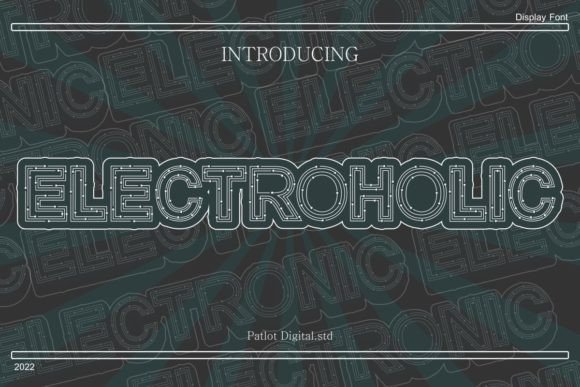
The Spark of Creativity: Unlocking the Potential of the Electroholic Font
Have you ever stared at a blank canvas, a blank page, or a blank screen, waiting for that spark of creativity to ignite? It’s that moment when the world around you fades away, and all that’s left is the hum of your imagination. For designers, this moment is a thrill unlike any other, and it’s exactly what the Electroholic Font is designed to inspire.
This unique display font is a masterclass in capturing the essence of electronic lines, distilling them into a bold, eye-catching design that’s sure to electrify your creative projects. Whether you’re crafting a futuristic logo, a neon-lit advertisement, or a cutting-edge graphic novel, the Electroholic Font is the perfect companion to help you unlock your full potential.
Electroholic Font Key Features
- Font Family: Electroholic Font is a unique, modern sans-serif font family designed for digital and print applications.
- Character Set: The font includes a comprehensive character set, including Latin, Cyrillic, and Greek alphabets, as well as punctuation marks and symbols.
- Font Size: Electroholic Font is designed to be highly legible at various font sizes, from 8pt to 24pt, making it suitable for body text, headings, and display use.
- Unique Characteristics: Electroholic Font features a distinctive, futuristic aesthetic with geometric shapes and clean lines, making it ideal for technology, gaming, and sci-fi themed projects.
Electroholic Font Review
Overall, I’d say Electroholic Font has some interesting features that make it stand out. ✨
The font’s bold and futuristic design makes it perfect for tech-related projects, video games, or any other project that requires a high-energy feel. ✨ The font’s wide range of glyphs and characters also make it suitable for various languages.
- Unique and futuristic design
- Wide range of glyphs and characters
- Perfect for tech-related projects
However, there are some limitations that prevent it from being a top choice for me. ⚠️
The font can be overwhelming if used in large quantities, and it may not be suitable for projects that require a more subtle or elegant design. ⚠️ Additionally, the font’s boldness can make it difficult to read for certain individuals, especially those with visual impairments.
- Overwhelming if used in large quantities
- Not suitable for projects requiring a subtle design
- Difficult to read for individuals with visual impairments
Overall, Electroholic Font is a unique and interesting font that can add a lot of energy to your projects. However, it may not be the best choice for every project, and its limitations should be carefully considered.
Tips for Getting the Most Out of Electroholic Font
Experiment with different font sizes, colors, and styles to create a unique look.
Use Electroholic Font in combination with other fonts to create a visually appealing design.
Consider using the font in bold or italic styles to add emphasis.
Electroholic Font is ideal for creating futuristic, high-tech designs.
Use it for logos, infographics, and other visual elements that require a modern and edgy look.
This font is also suitable for titles, headings, and other text elements that need to stand out.